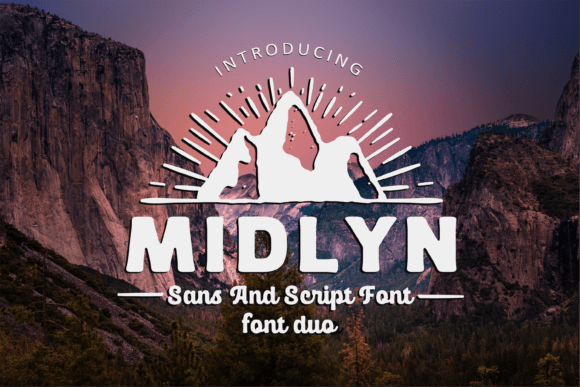
Introducing Midlyn Font, the ultimate font style for movie posters and beyond! Created by the talented designers at Monanza Studio, this font collection combines the beauty of sans serif and script fonts to bring you a truly unique and captivating typography experience.
With Midlyn Font, your designs will reach new heights of coolness and elegance. Whether you're working on a movie poster, a logo, a website, or any other design project, this font will instantly elevate your work to a whole new level.
The sans serif font of Midlyn brings a sense of modernity and minimalism to your designs. Its clean and sleek lines create a professional and sophisticated look that is perfect for any contemporary project. Whether you're aiming for a bold statement or a subtle elegance, Midlyn's sans serif font has got you covered.
But that's not all – the script font of Midlyn adds a touch of artistic flair and handcrafted charm to your designs. Its fluid strokes and graceful curves create a sense of movement and personality that will make your text truly stand out. From invitations to branding, Midlyn's script font adds a touch of sophistication and uniqueness to every project.
What sets Midlyn Font apart is its versatility. It seamlessly blends the best of both worlds – the modernity of sans serif and the artistic touch of script. This powerful combination allows you to create eye-catching designs that will captivate your audience and leave a lasting impression.